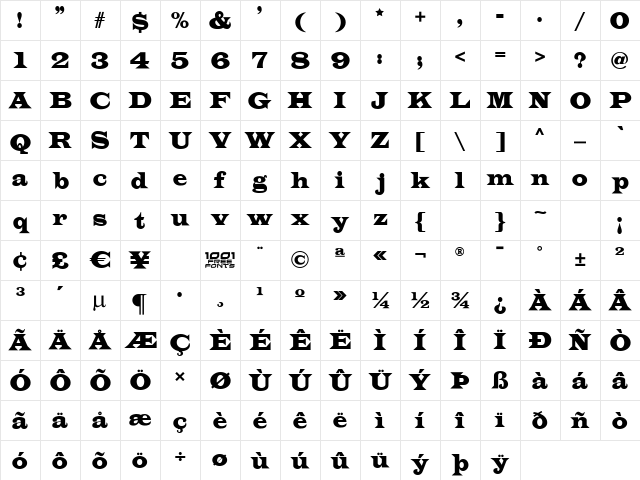
Indubitably NF Regular
Foundry: Nick's Fonts
Designer: Nick Curtis
Design Context for Indubitably NF
Indubitably NF is a composed and adaptable typeface that performs quietly and consistently across a wide range of design contexts.